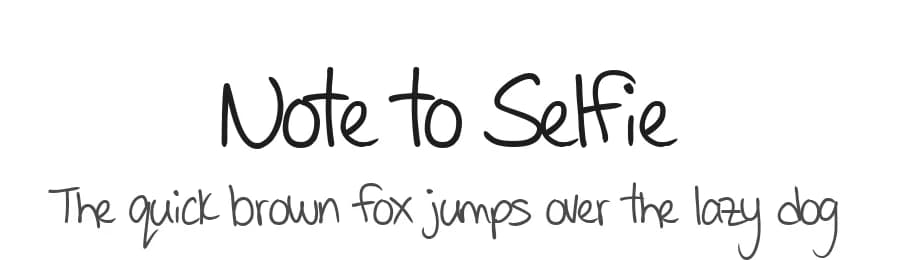
About Note to Selfie Font
Another hand written typeface to choose from. This one might be messy, but it looks real. ItΒs not a quick auto trace family. Took some time with this one. Hope itΒs a fit for your project.
| Designer | Michael Tension |
Note to Selfie Font is a script font that shines as a display or heading face. Pair it with a clean sans-serif or serif font for body text β the contrast creates a clear hierarchy while the two styles stay balanced and easy to read.
Note to Selfie Font